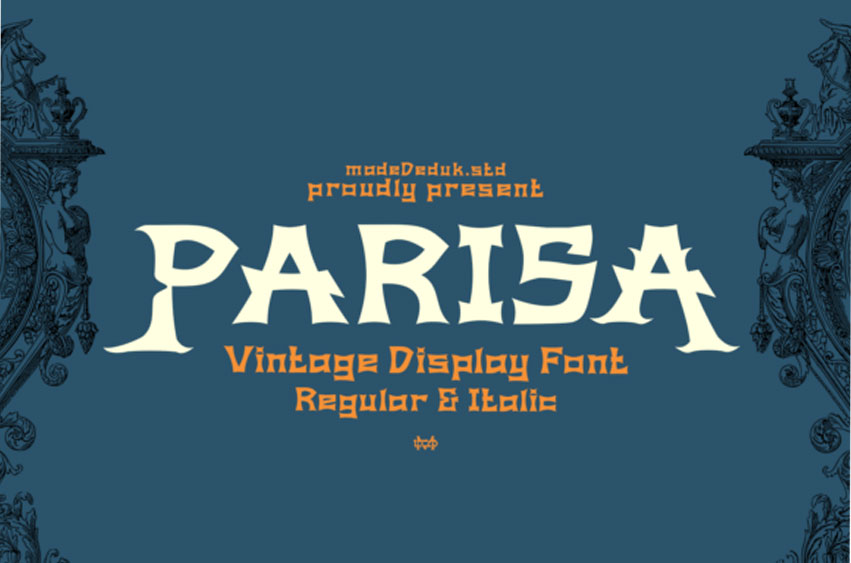
Parisa Font is a striking display font inspired by the elegance of the Empire era. It delivers a strong, timeless touch with its bold shapes, expressive details, and refined legibility—all crafted in a single weight.
Designed to capture both vintage charm and classic sophistication, Parisa is perfect for projects that call for elegance and luxury. Whether you’re working on book covers, product labels, logos, badges, drink packaging, tattoo studio branding, coffee shop identities, or fashion products, this font will elevate your design with a regal and memorable presence.